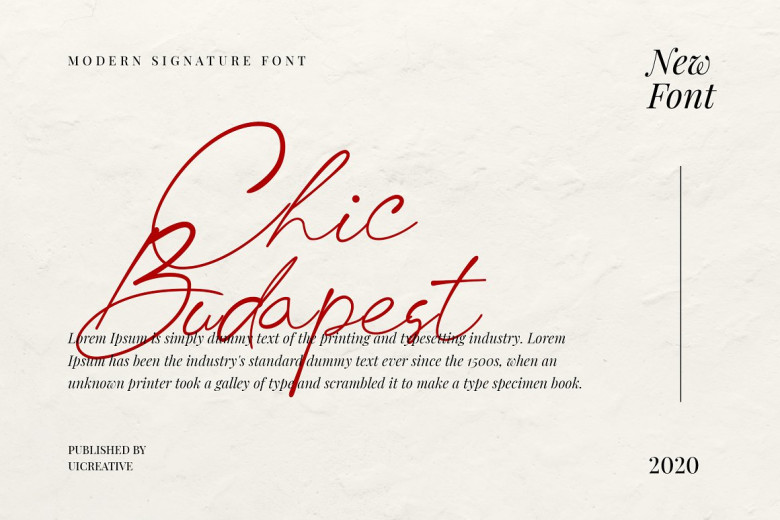
Chick Budapest Font
Chick Budapest is a modern signature font that feels beautiful classical, elegant, and modern. This font is ideally suited for a wide variety of projects, such as signature, stationery, logo, wedding, typography quotes.
Chick Budapest Signature Script Font